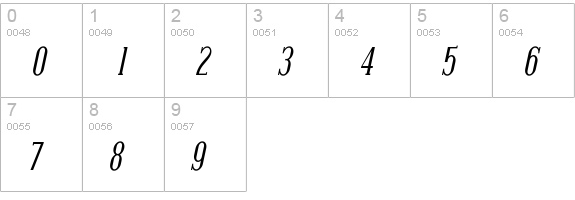
Covington Cond Italic is a distinctive, condensed-width, italic variant in the Covington typeface family \xE2\x80\x94 well suited to design and typography projects.
Covington Cond Italic is a sleek and sophisticated font that exudes elegance and modernity. With its stylish slanted design, this typeface is perfect for adding a touch of flair to any project. The graceful curves and sharp angles of Covington Cond Italic make it ideal for creating eye-catching headings, titles, and logos. This font is not only aesthetically pleasing but also highly versatile, suitable for a wide range of design applications. Whether you're working on a sleek branding project or a contemporary editorial layout, Covington Cond Italic will elevate your design to the next level. Best of all, Covington Cond Italic is completely free to download at FontsMarket.com. This means you can easily access this stunning font and use it in your projects without any cost. Don't miss out on the opportunity to add Covington Cond Italic to your font collection today!